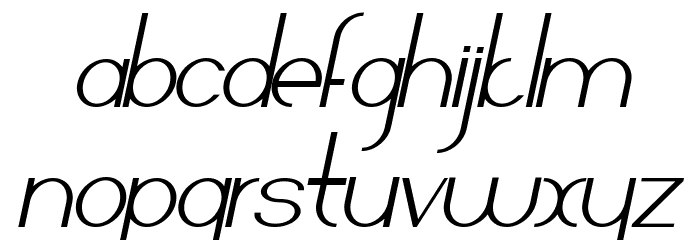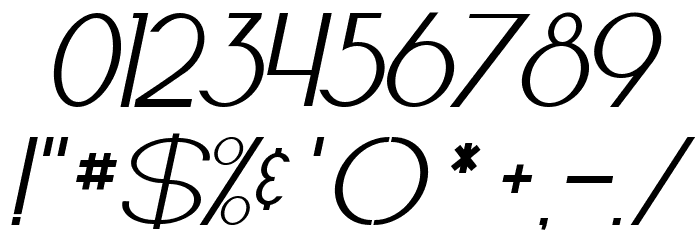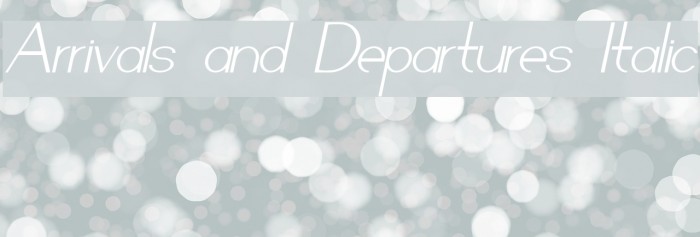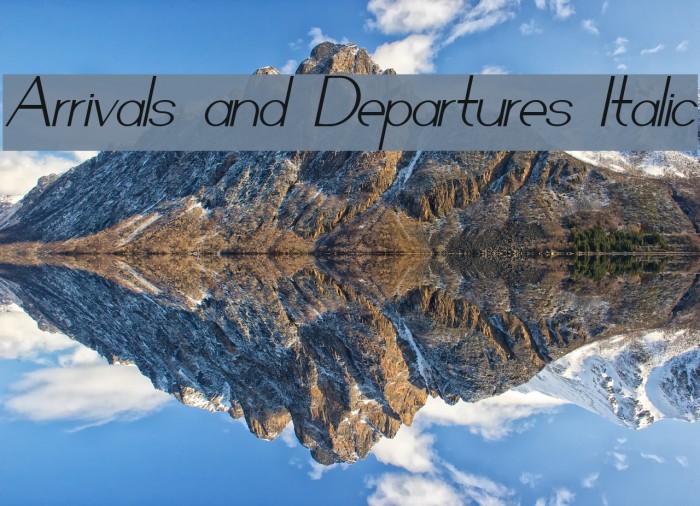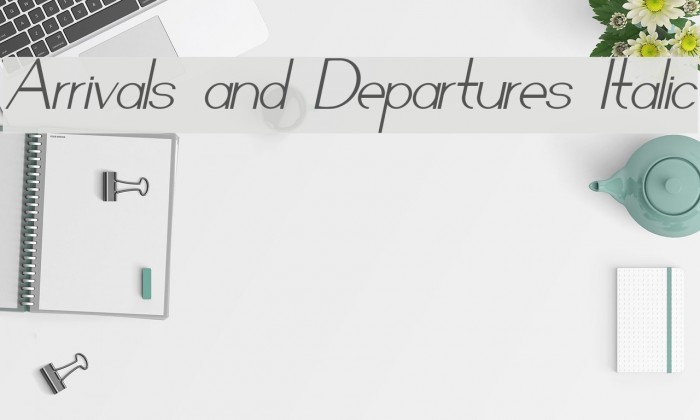
Arrivals and Departures Italic Font
This font features a sleek and modern design with a distinct italic slant, giving it a dynamic and forward-moving appearance. The characters are crafted with clean lines and a geometric structure, providing a sense of precision and clarity. The uppercase letters are tall and elegant, while the lowercase letters maintain a consistent flow, enhancing readability. The numerals are well-proportioned, and the special characters are designed to complement the overall style. This font's aesthetic is both contemporary and versatile, making it suitable for a variety of design applications.
A sleek, modern italic font with clean lines and geometric structure.
- Proposed Projects: Ideal for branding, editorial design, advertising, and digital interfaces.